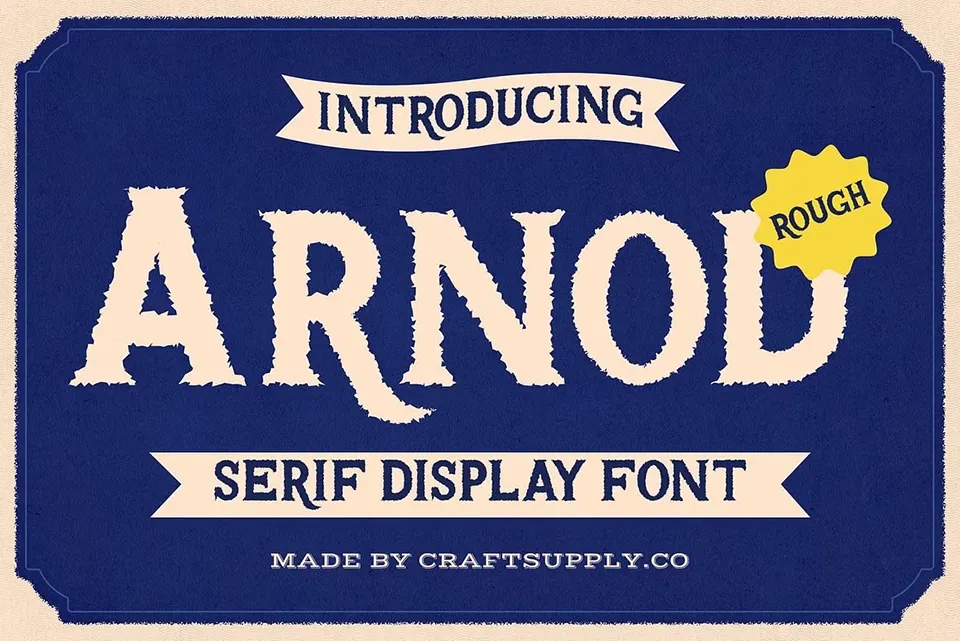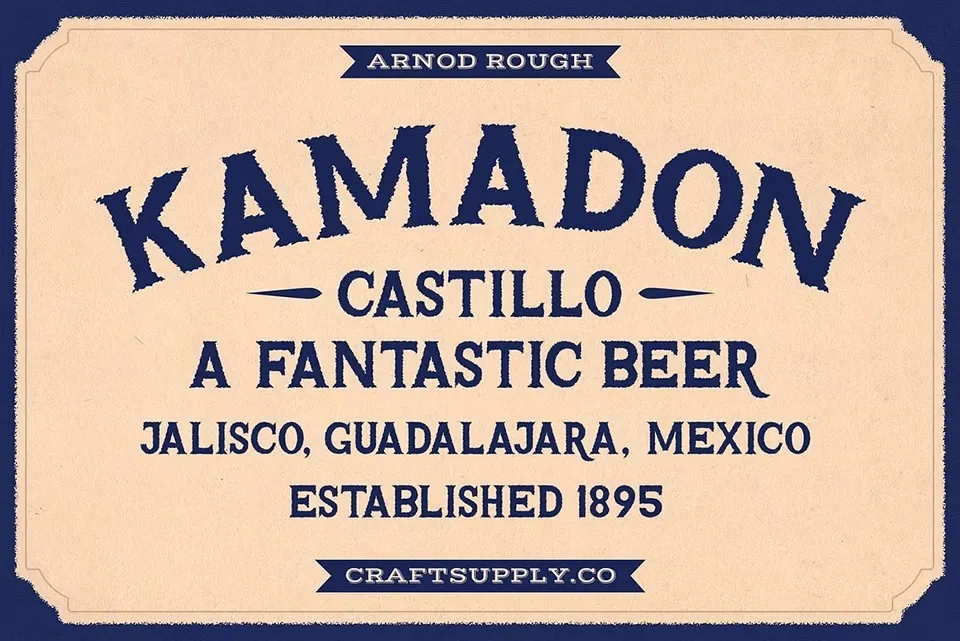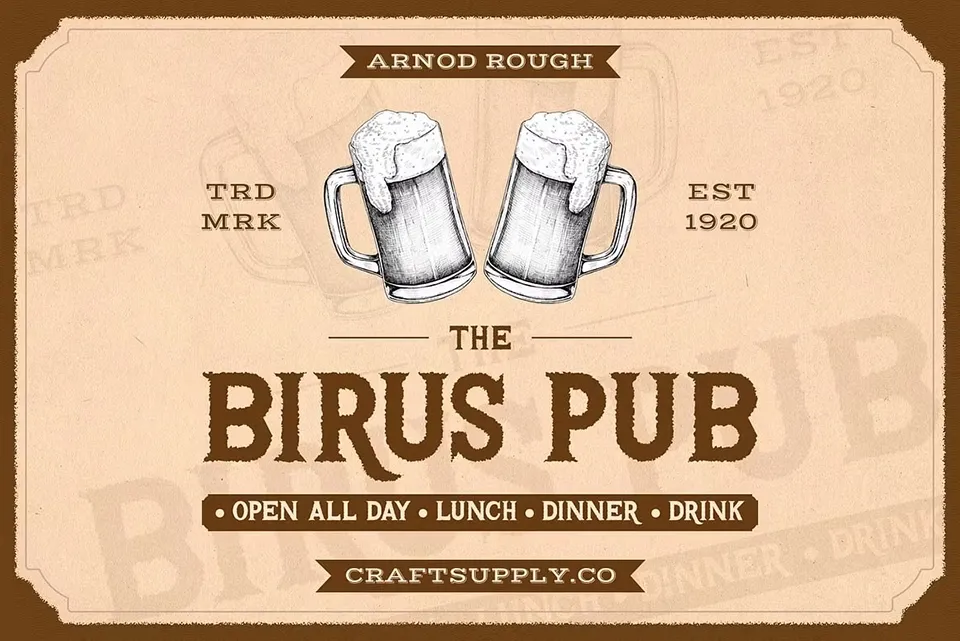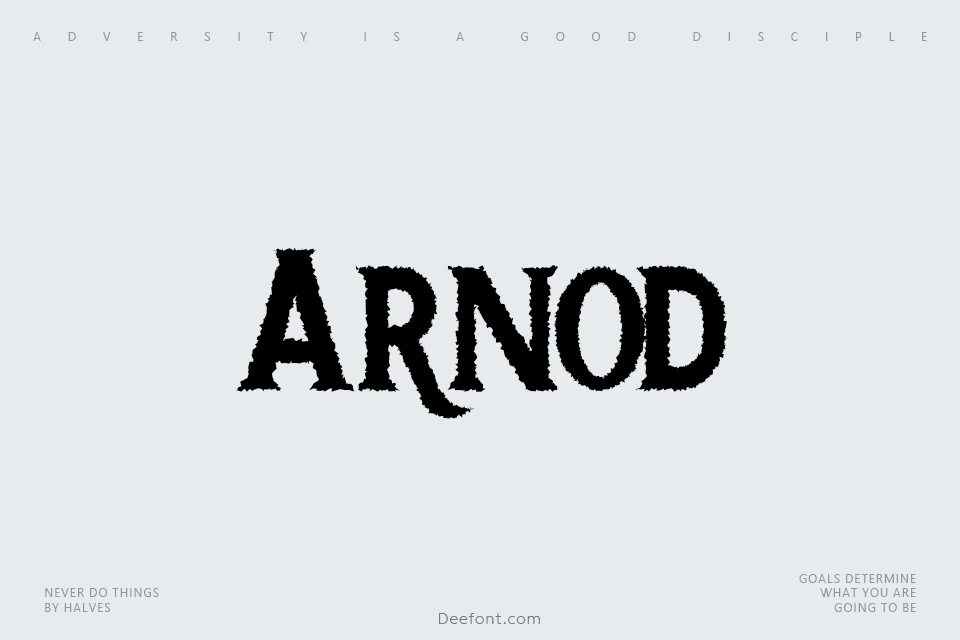
Arnod Rough Font
Arnod Rough Font is a serif font that exudes boldness with its retro masculine features. Combining strong, assertive elements with an industrial aesthetic, this font stands out with its robust and clear lines. The design emphasizes power and precision, making it perfect for projects that require a commanding visual presence. With its industrial-inspired look, Arnod Rough showcases an aura of strength and precision, ideal for designs that need to convey reliability and robustness. The rough effect adds an extra dimension, infusing it with a rugged, tactile quality that enhances the industrial look and provides visual interest and character.